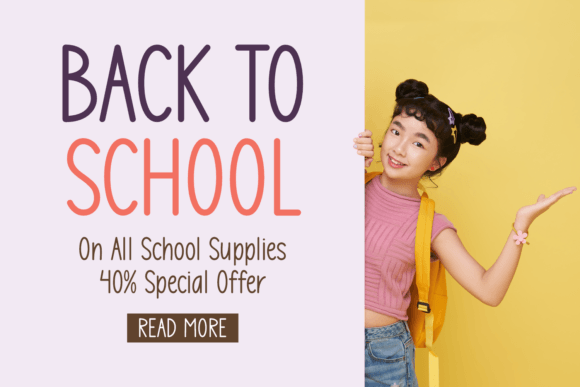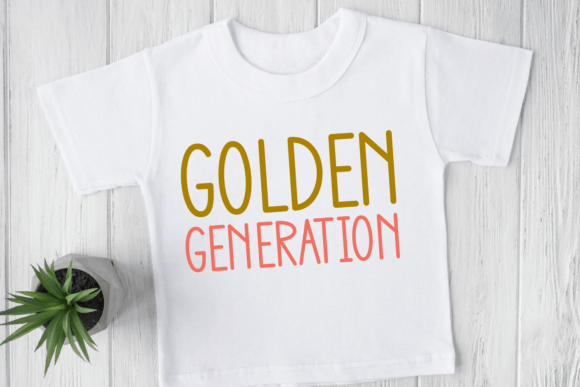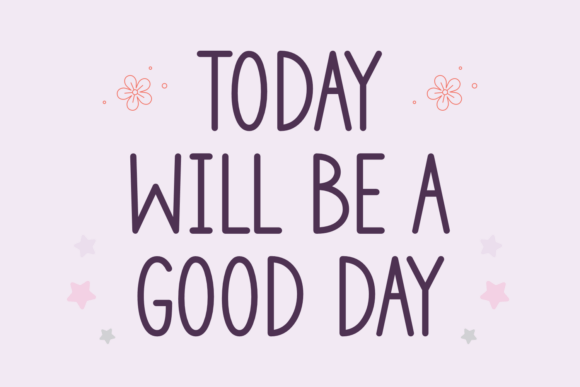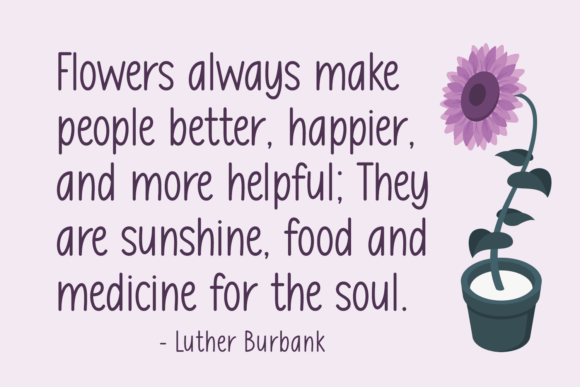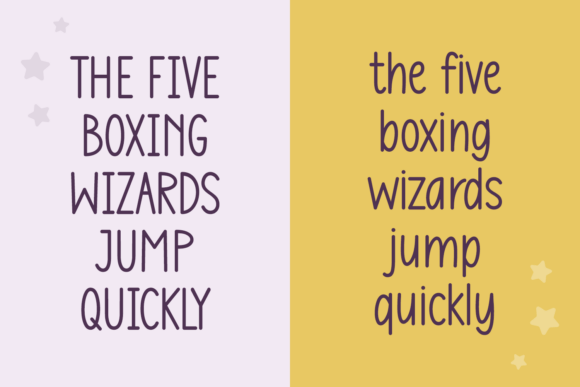
Discover the Charm of Another Creative Font: Elevate Your Designs with a Friendly Handwritten Touch
In the world of typography, fonts play a crucial role in conveying the tone and personality of a brand or project. Among the myriad of font styles available, handwritten fonts have gained immense popularity for their ability to add a personal and approachable touch to designs. One such font that has captured the hearts of designers and crafters alike is Another Creative. This friendly handwritten font is renowned for its casual, playful vibe, making it an ideal choice for a wide range of projects.
The Unique Characteristics of Another Creative Font
Another Creative is a friendly handwritten font that boasts smooth, natural strokes and charming imperfections. These characteristics bring warmth and personality to any project, setting it apart from more conventional fonts. The casual, playful vibe of Another Creative makes it perfect for designs that require a touch of creativity and approachability.
One of the standout features of Another Creative is its ability to evoke a sense of friendliness and approachability. The font’s smooth strokes and natural flow make it feel like it was written by hand, rather than created digitally. This unique characteristic makes it an excellent choice for designers looking to add a personal touch to their work.
Uses of Another Creative Font
Another Creative’s versatility makes it suitable for a wide range of applications. Here are some of the most popular uses of this charming font:
- Invitations: Whether it’s a wedding invitation, birthday party invite, or any other special occasion, Another Creative adds a touch of warmth and personality that makes the recipient feel special.
- Social Media Graphics: In the world of social media, standing out from the crowd is crucial. Another Creative helps create engaging and approachable graphics that capture the audience’s attention and convey the brand’s personality.
- Branding: A brand’s typography plays a significant role in shaping its identity. Another Creative can help businesses establish a friendly and approachable tone, making it perfect for branding materials such as logos, packaging, and marketing collateral.
- Personal Notes: Whether it’s a heartfelt letter or a simple to-do list, Another Creative adds a touch of personality to personal notes, making them feel more special and meaningful.
Why Designers and Crafters Love Another Creative Font
Designers and crafters alike have fallen in love with Another Creative for several reasons:
- Unique Personality: Another Creative’s charming imperfections and smooth strokes give it a unique personality that sets it apart from other fonts.
- Versatility: The font’s versatility makes it suitable for a wide range of applications, from formal invitations to social media graphics.
- Ease of Use: Another Creative is easy to read and works well in various sizes, making it a practical choice for designers and crafters.
- Emotional Connection: The font’s friendly and approachable vibe helps create an emotional connection with the audience, making it perfect for designs that require a personal touch.
Tips for Using Another Creative Font Effectively
To get the most out of Another Creative, here are some tips for using it effectively:
- Pair it with Other Fonts: Experiment with pairing Another Creative with other fonts to create a unique and visually appealing combination.
- Use it in Large Sizes: Another Creative works well in large sizes, making it perfect for headlines and titles.
- Experiment with Colors: The font’s friendly vibe works well with a range of colors, so don’t be afraid to experiment and find the perfect combination for your design.
- Keep it Simple: Another Creative’s simplicity is part of its charm, so avoid over-complicating your design and let the font shine.
In conclusion, Another Creative is a friendly handwritten font that brings a touch of warmth and personality to any project. Its smooth, natural strokes and charming imperfections make it perfect for designs that require a casual, playful vibe. With its versatility, unique personality, and ease of use, it’s no wonder designers and crafters alike have fallen in love with Another Creative. Whether you’re working on invitations, social media graphics, branding, or personal notes, this charming font is sure to elevate your designs and add a touch of creativity and approachability.